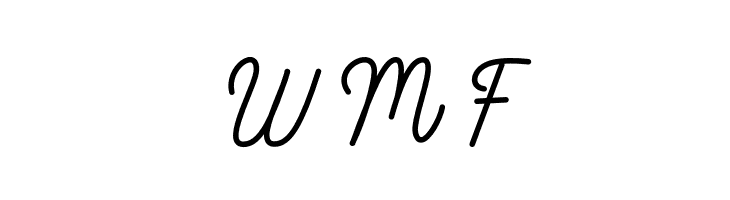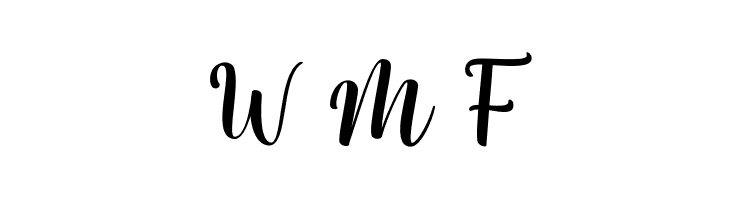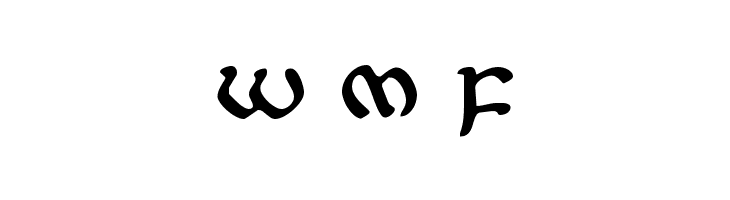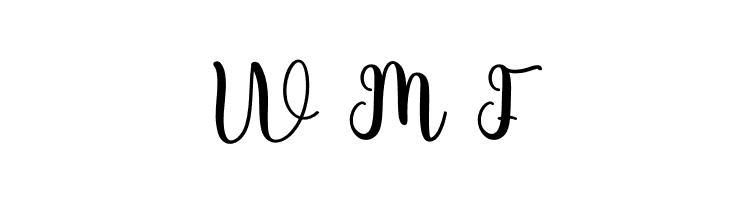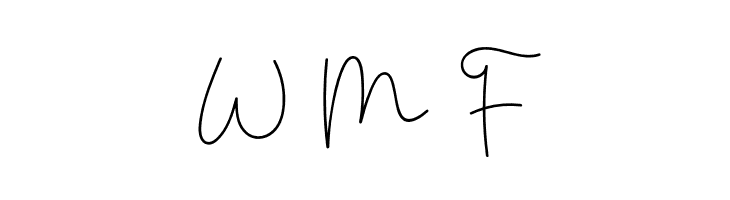
A bold, flowing script font with elegant, hand-drawn curves.
A bold, graffiti-style font with angular, dynamic letterforms.
A dynamic and flowing script font with elegant, cursive strokes.
A playful, cursive handwritten font with smooth, rounded edges.
A lively, handwritten font with fluid and dynamic strokes.
A flowing, cursive font with a handwritten, elegant style.
A bold, energetic script font with a fluid, handwritten style.
An elegant, cursive font with intricate loops and flourishes.
A lively and elegant script font with bold, flowing letterforms.
A flowing, cursive italic font with elegant, connected strokes.
A bold, handwritten font with dynamic, brush-like strokes.
A bold, geometric font with a futuristic and dynamic style.
A playful, cursive script font with elegant loops and swirls.
A cursive, handwritten-style font with a flowing and elegant appearance.
An elegant and fantasy-inspired serif font with distinctive serifs and graceful curves.
An artistic, carved-style font with elongated, narrow letterforms.
A playful and decorative font with dynamic stroke variations and whimsical characters.
A decorative, fantasy-inspired font with bold, intricate characters.
An elegant, fantasy-inspired font with sharp serifs and flowing curves.
A rugged, hand-drawn font with a fantasy and adventure theme.
A playful and elegant handwritten script font with flowing strokes.
A playful, handwritten font with fluid strokes and a casual style.
Tall, narrow handwritten font with a playful style.
A bold, dynamic font with thick strokes and sharp angles, perfect for impactful designs.
A bold, angular font with a dynamic and modern style.
A bold, gothic-inspired font with sharp, angular edges and intricate details.
A decorative font with swirling, vine-like extensions and high contrast, ideal for fantasy themes.